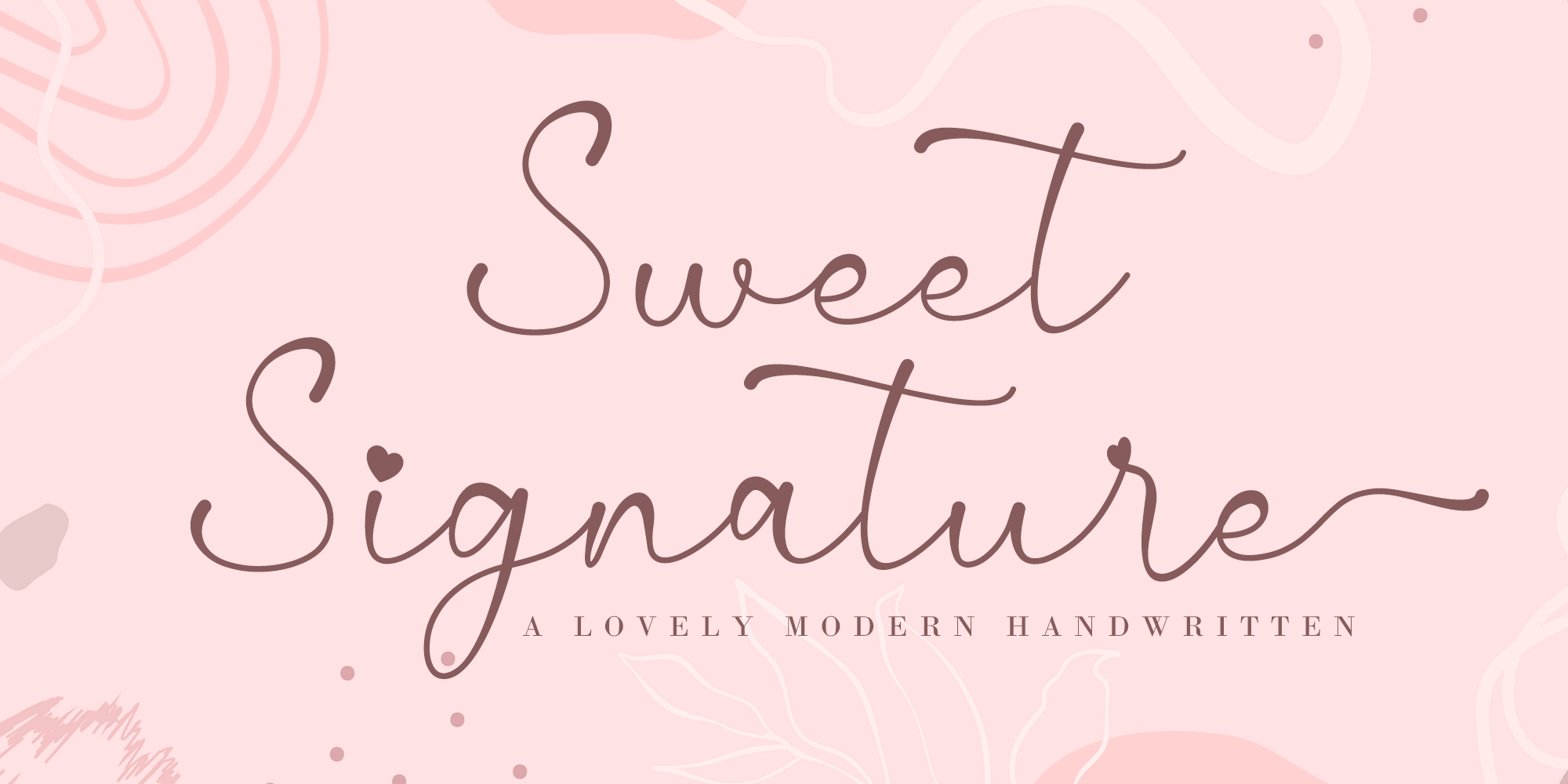
Sweet Signature Font Free Download is a stylish and elegant script font perfect for those looking to add a personal and handwritten touch to their design projects. Please note: you need to purchase a license for commercial use — this font is available for free download only for testing and personal projects.
This versatile font is ideal for branding, logo design, wedding invitations, social media posts, business cards, and even stylish blog headers. If you're working on a project that demands a luxurious, feminine, or handcrafted aesthetic, Sweet Signature Font Free Download is a top-tier choice.
What makes this font so exciting is its fluid strokes and natural penmanship that mimic a genuine signature. It brings emotion and intimacy to your typography, making your words feel more personal and heartfelt. Whether you're designing for a boutique brand or crafting a heartfelt greeting card, Sweet Signature helps you speak directly to your audience’s soul.
The Sweet Signature font family includes multiple weights and styles, such as Regular, Bold, Italic, and Swash versions — giving designers the flexibility to mix and match styles while maintaining brand consistency.